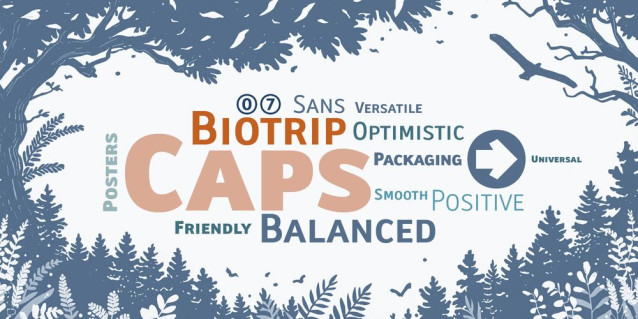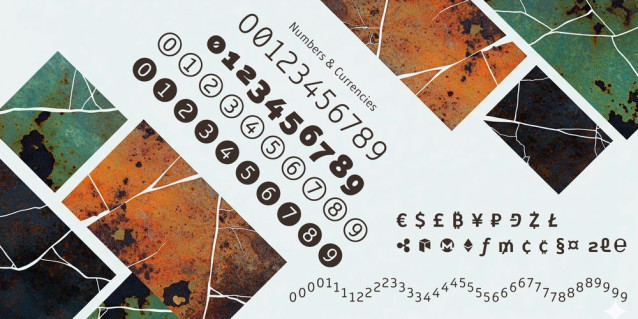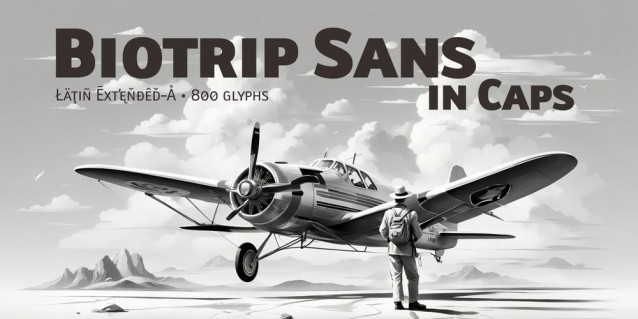
Biotrip Sans Caps Font
Biotrip Sans Caps is a multipurpose typeface, refined down to the last detail. It includes seven weights—Light, Regular, Medium, Semi Bold, Bold, Extra Bold, and Black—that allow for the creation of solid, adaptable, and expressive visual systems.
Each variant has been carefully designed to preserve the humanist essence of Biotrip Sans, with the authority of capital letters.
In Biotrip Sans Caps, I explore the tension between control and gesture, between rational form and human touch.
It is this warmth that breaks the coldness of the pixel and establishes a real, almost tactile, connection with the reader.
Its construction is organic and vibrant, with flowing curves.
The forms are open and welcoming, designed to offer excellent legibility in small sizes, but also to support large headlines with character, balance, and presence.